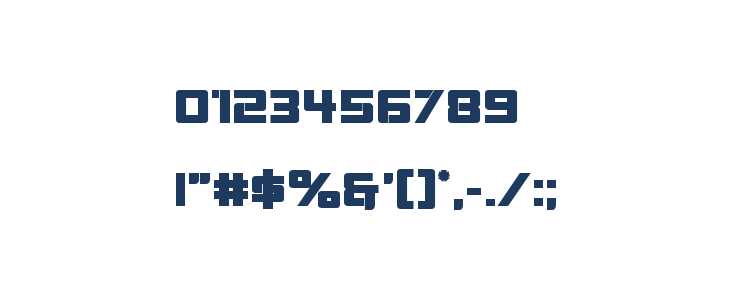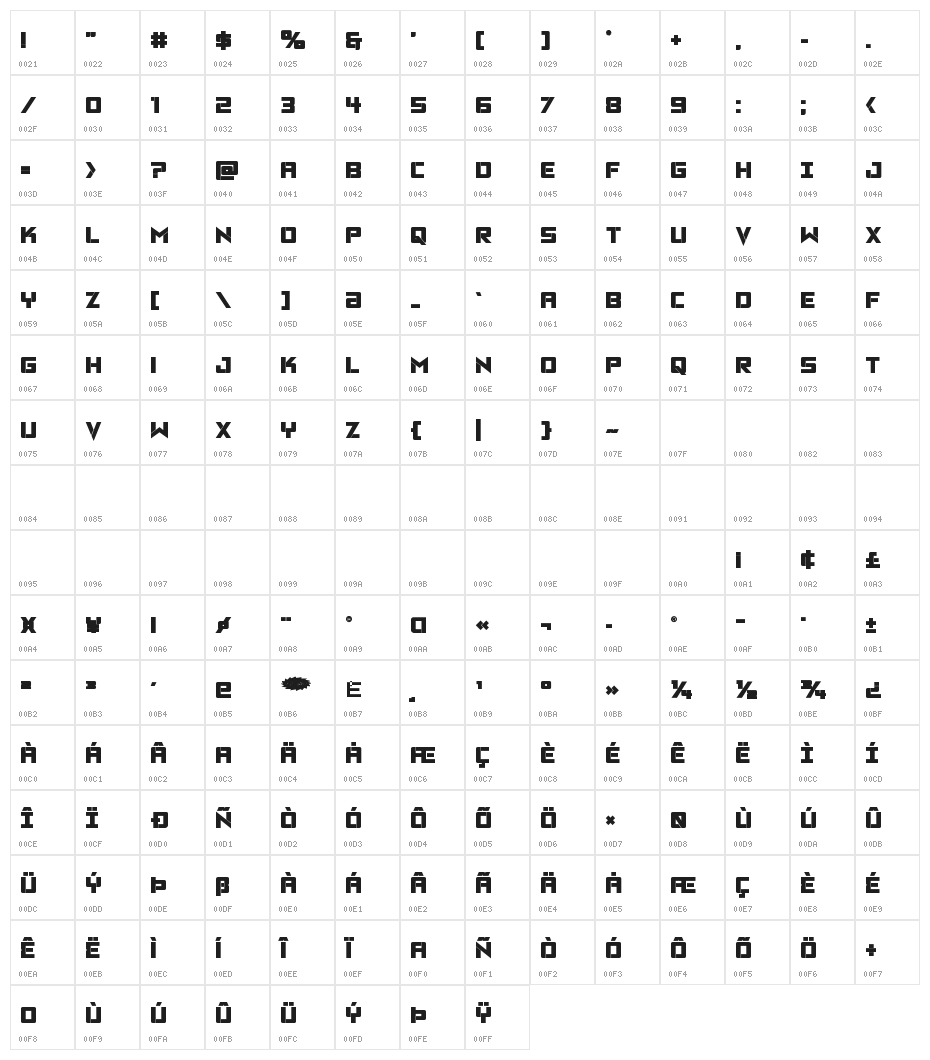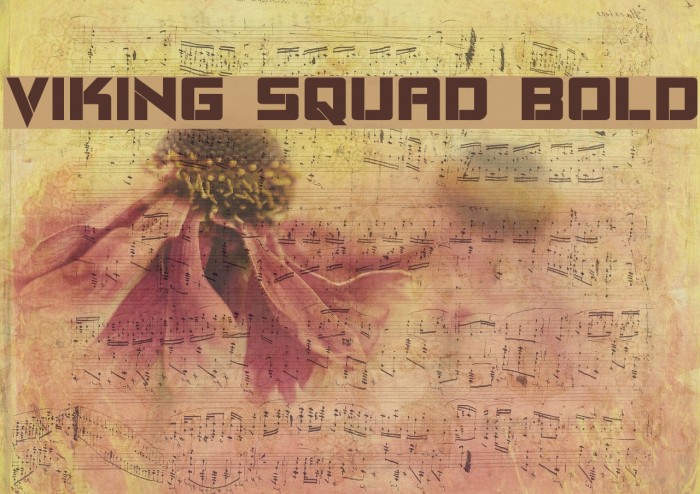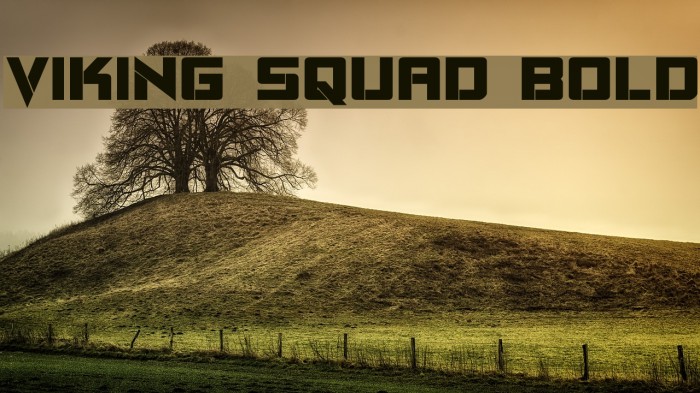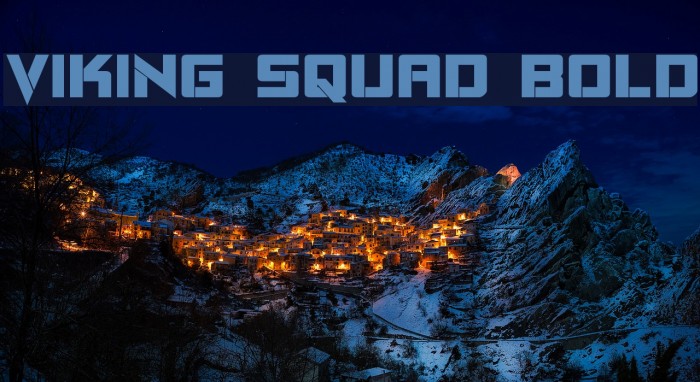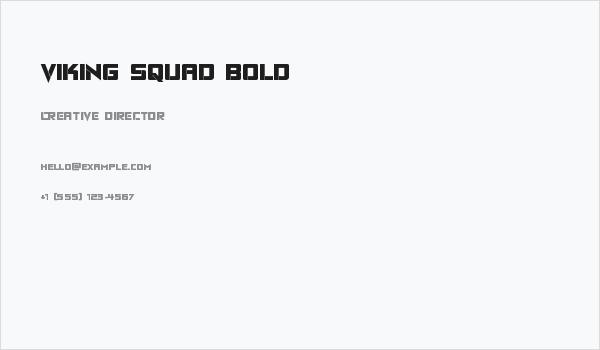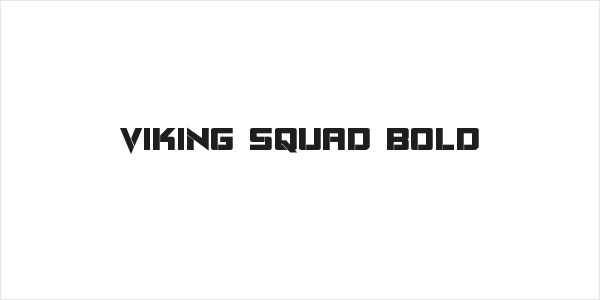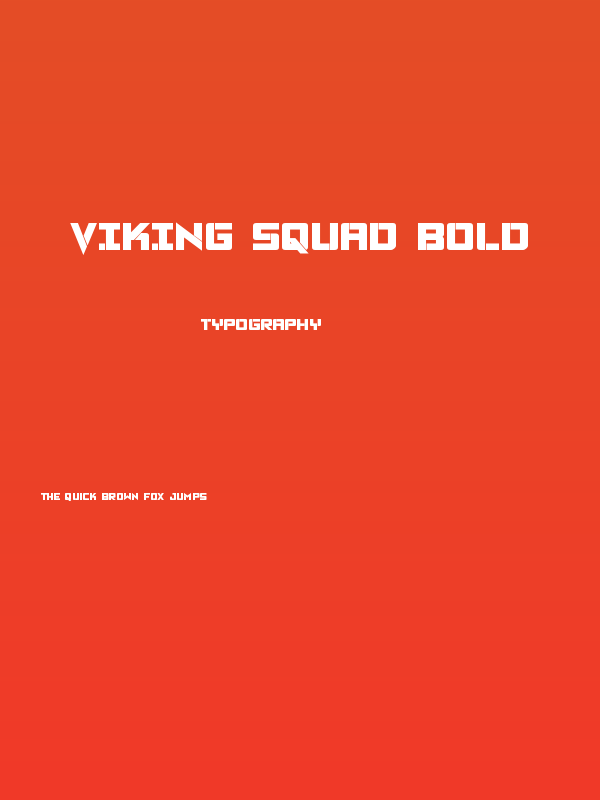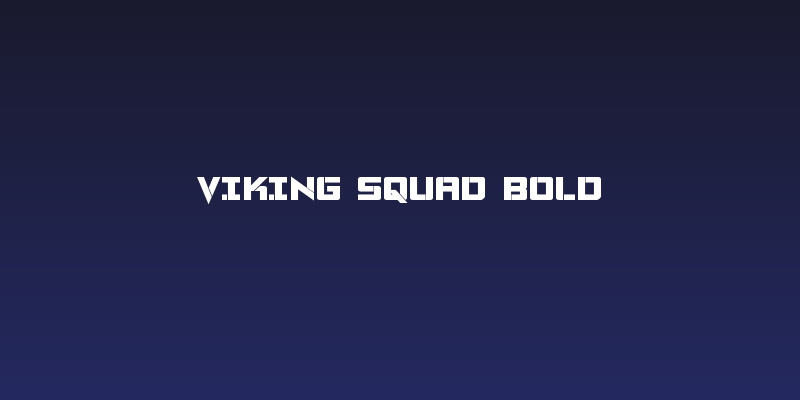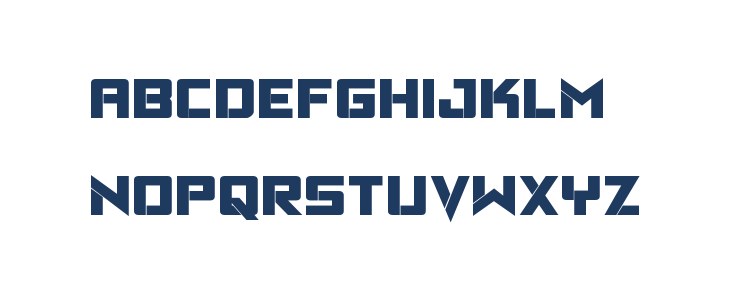
Viking Squad Bold Font
Viking Squad Bold Description
This bold and striking font features a geometric and angular design, reminiscent of ancient runes with a modern twist. The uppercase letters are characterized by sharp edges and a blocky structure, giving them a strong and commanding presence. The lowercase letters maintain the same boldness, ensuring consistency across text. Numbers and special characters are designed with the same angular precision, making them stand out distinctly. The font's overall appearance is both futuristic and historical, making it versatile for various creative applications.